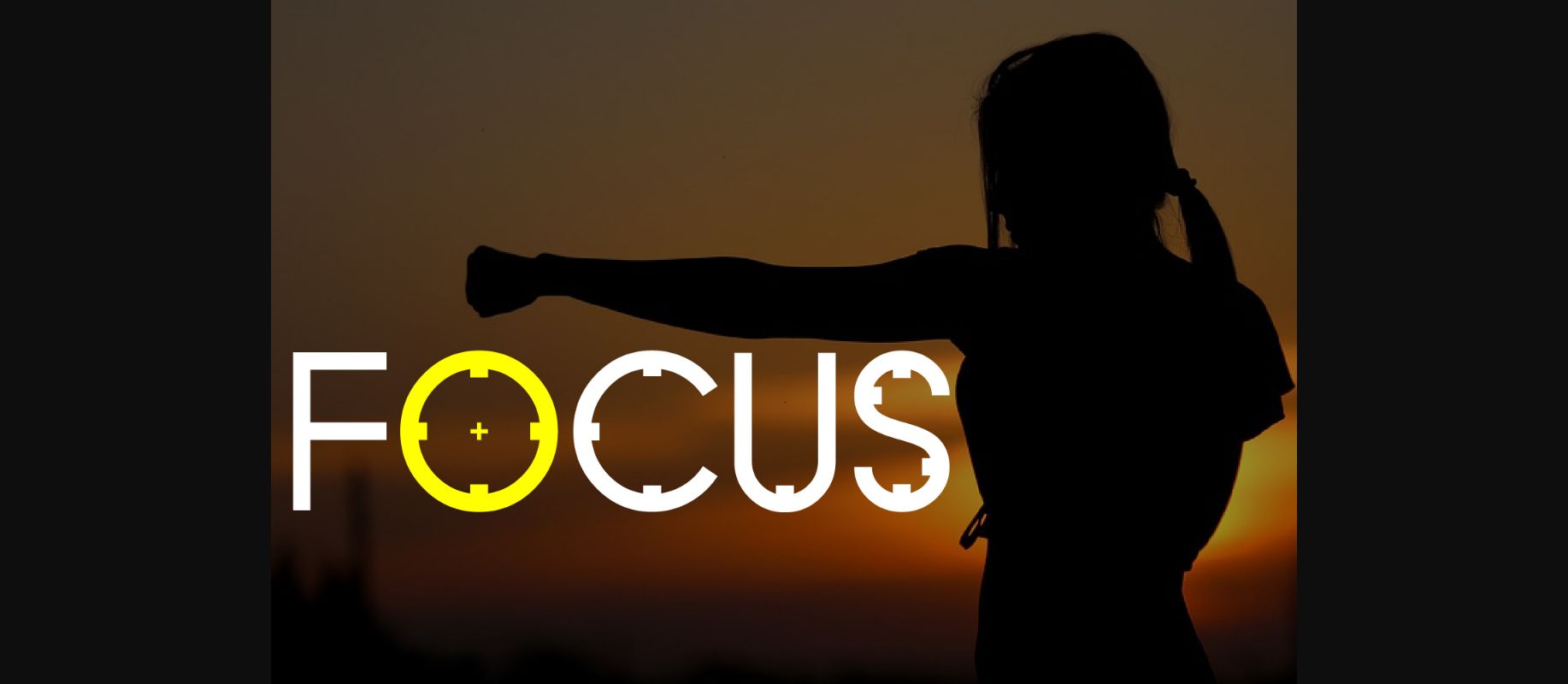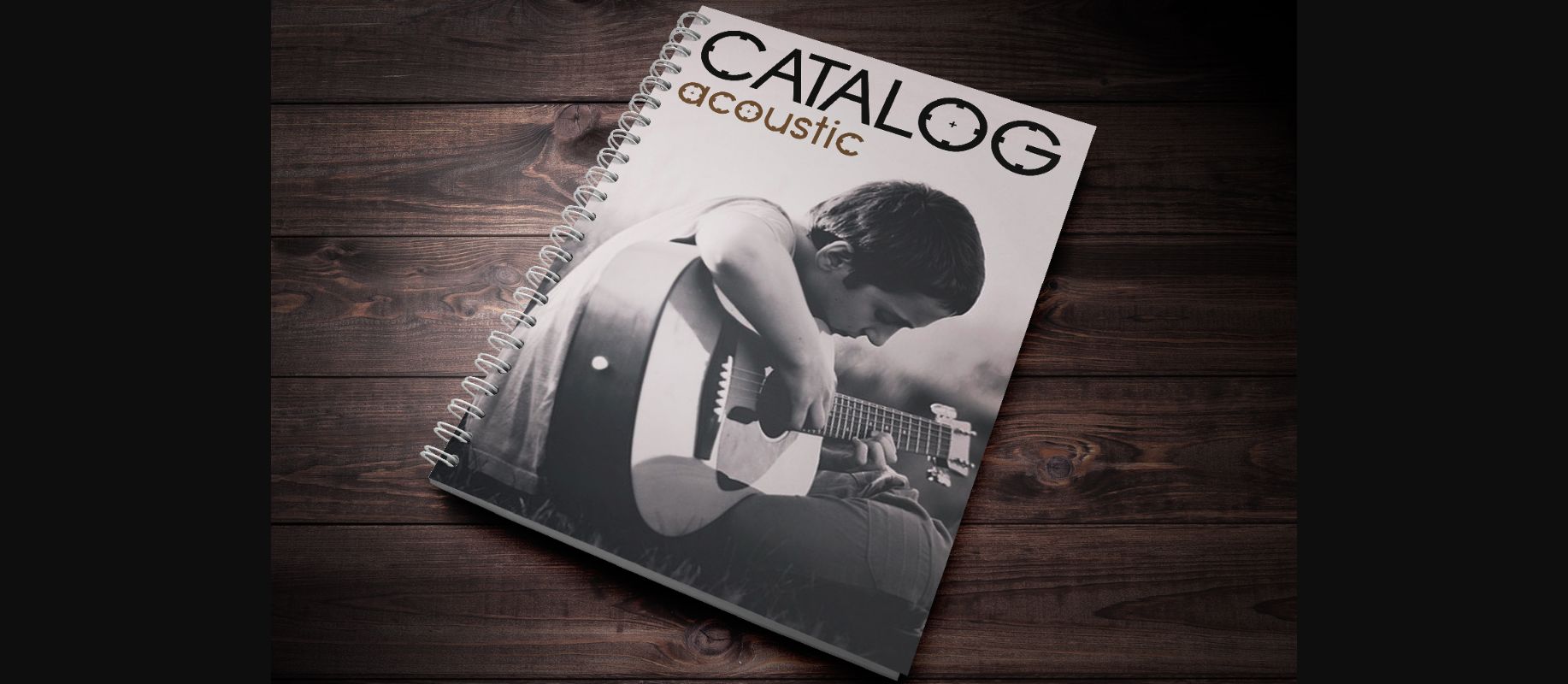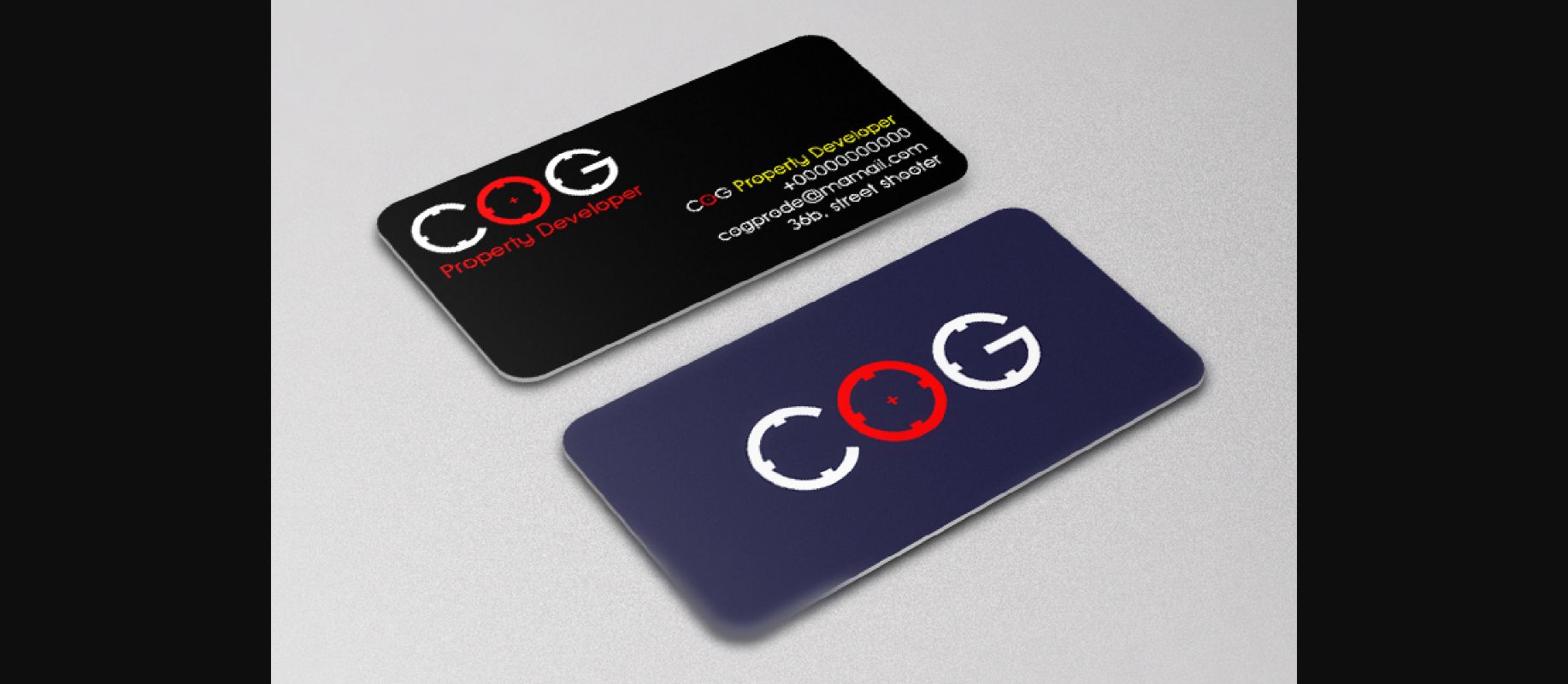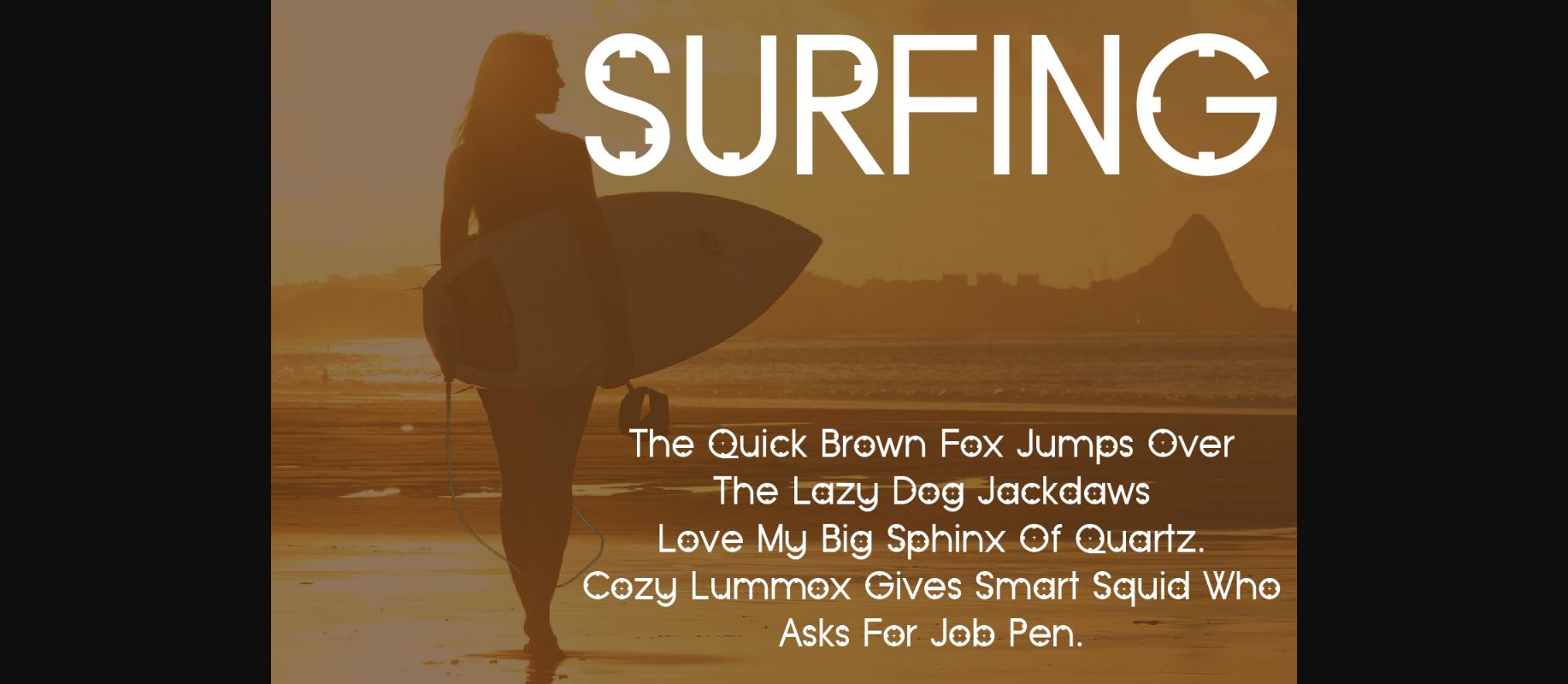
HomeDecorative FontsFocus Font Decorative Fonts Focus Font FacebookXPinterestWhatsApp 1 of 4 About Focus Font Focus is fresh typeface with a technical feel. It will surely add a unique touch to any design project! DOWNLOAD NOW People also explored Bold Script Font Bundle Vol 5 Saturnalia Font Sofia Carolyn Font Nomadic Font South Montana Allovoneue Semi-Bold Font Lovely Font Black and Bitter Coffee Font Rainbow Love Font 350 0 TagsFocusFocus Font Previous articleRoundbreck FontNext articleBlackWhite Font LEAVE A REPLY Cancel reply Comment: Please enter your comment! Name:* Please enter your name here Email:* You have entered an incorrect email address! Please enter your email address here Website: Save my name, email, and website in this browser for the next time I comment. Personal Use Free Bolt Electric Personal Use Free Read more about this font Concrete Wall Personal Use Free Read more about this font Leadent Script Personal Use Free Read more about this font Sushi Stroke Personal Use Free Read more about this font BLOG How to Cut Any Font on Cricut: Convert a Font to SVG (Free) Turn any font into a clean SVG so it cuts crisp on Cricut - a quick 3-step workflow using a free font-to-SVG tool. Top 10 Handwritten Fonts That Elevate Your Designs Best Fonts for YouTube Videos: Make Your Thumbnails Stand Out Free Fonts Risk: Why Free Fonts Can Be Dangerous for Designers